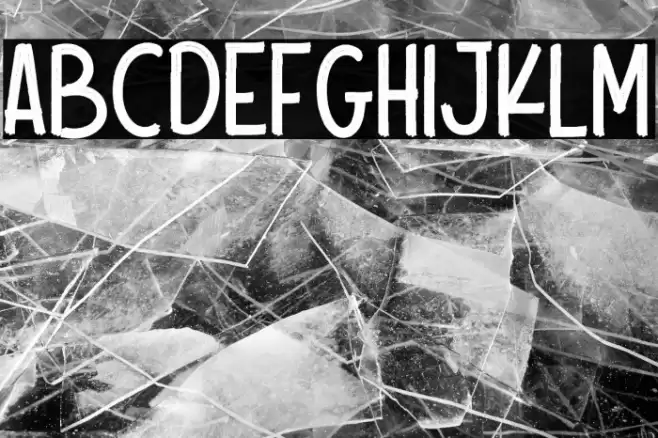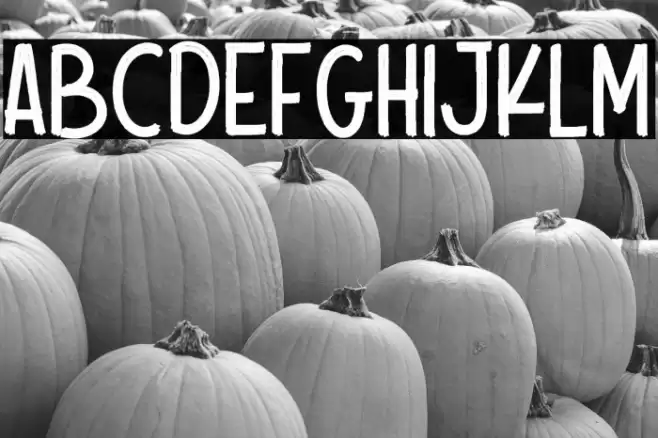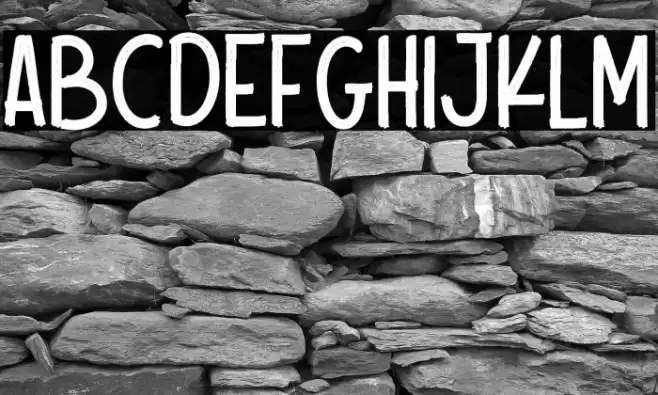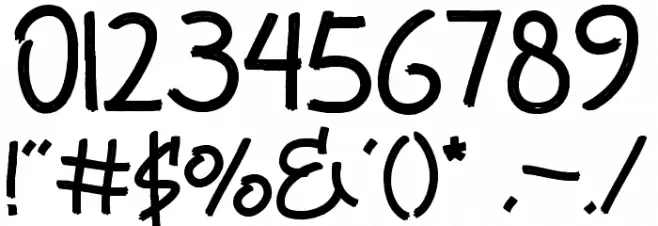
Scout Kind Font
Scout Kind Description
This font features a playful and hand-drawn aesthetic, characterized by its bold and slightly irregular strokes. The uppercase letters are tall and narrow, with a whimsical flair that adds a sense of fun and creativity. The lowercase letters maintain this playful style, with rounded edges and a casual, friendly appearance. Numbers are consistent with the overall style, offering a cohesive look across all characters. Special characters are designed with the same hand-drawn quality, making them suitable for creative and informal projects. The font's unique style makes it ideal for projects that require a personal touch, such as children's books, greeting cards, or playful branding.
A playful, hand-drawn font with bold, irregular strokes and a whimsical style from Uncategorized fonts.
- Font: Scout Kind
- Proposed Projects: Ideal for children's books, greeting cards, playful branding, and creative projects.
- Overall Style: Playful, Creative
- Use Case: Headlines, Logos, Informal Text
Scout Kind UPPERCASE
Scout Kind LOWERCASE
Scout Kind OTHER CHARS